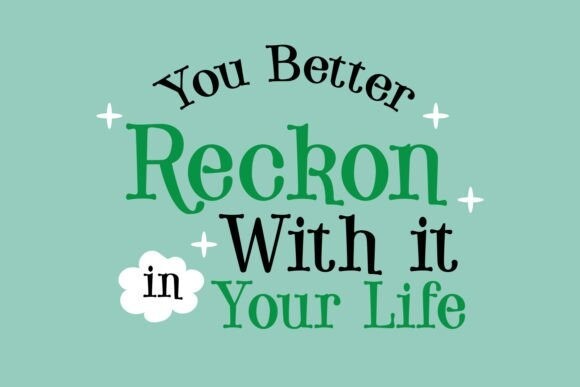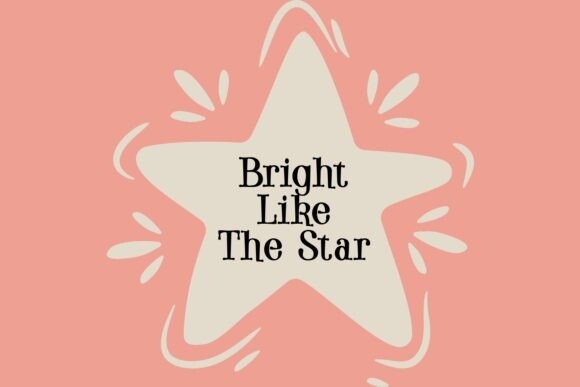
Richer Insight Font
Richer Insight Font is a refined serif display font that exudes sophistication and elegance, perfect for projects seeking a touch of timeless charm. With its sleek design and classic proportions, this font adds a sense of refinement and authority to any design project. Each letter in Richer Insight is meticulously crafted with clean lines and precise serifs, exuding a sense of grace and sophistication. The generous spacing and balanced proportions of the font ensure clarity and readability in any size.